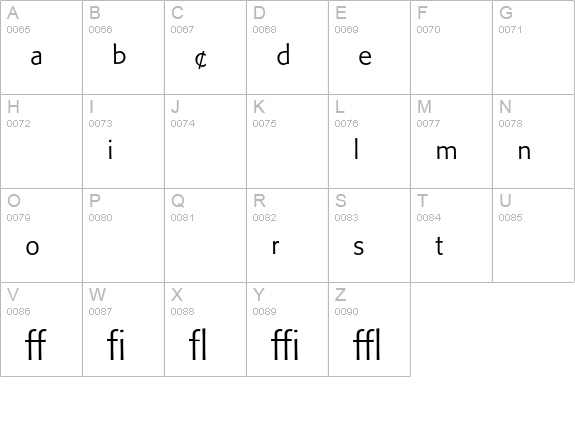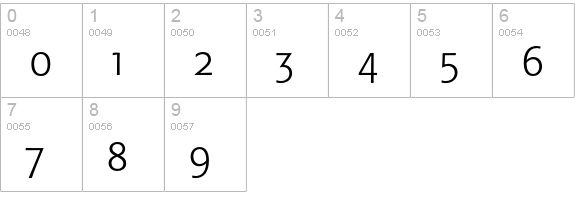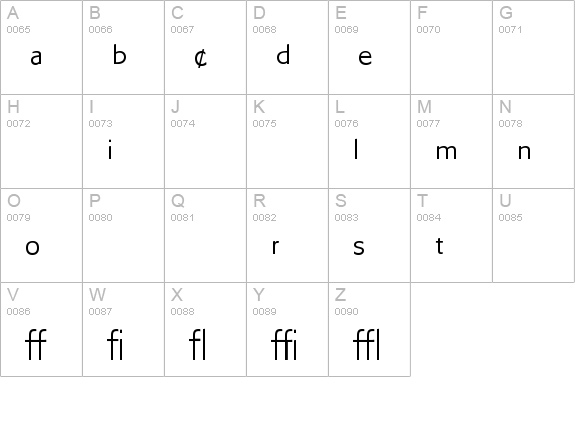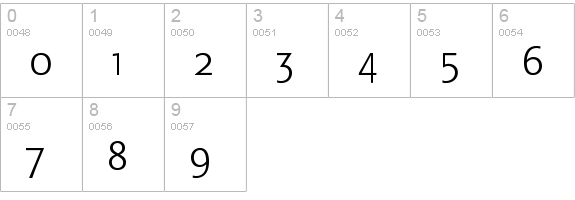
Formata Light Expert Font Details
Formata Light Expert is a refined, elegant variant in the Formata typeface family \xE2\x80\x94 well suited to elegant body text, refined sub-headings, and luxury branding.
Formata Light Expert font is a modern and elegant typeface that exudes sophistication and professionalism. With its sleek lines and graceful curves, this font is perfect for a wide range of design projects, from branding to editorial design. The Light Expert variant offers a delicate and refined look, making it ideal for conveying a sense of elegance and luxury. Best of all, Formata Light Expert font is available for free download at FontsMarket.com. You can easily access this font and enhance your designs with its timeless appeal. Whether you're working on a website, a business card, or a brochure, Formata Light Expert font will elevate your design and make a lasting impression. Don't miss out on this opportunity to add a touch of sophistication to your projects with this exquisite font.